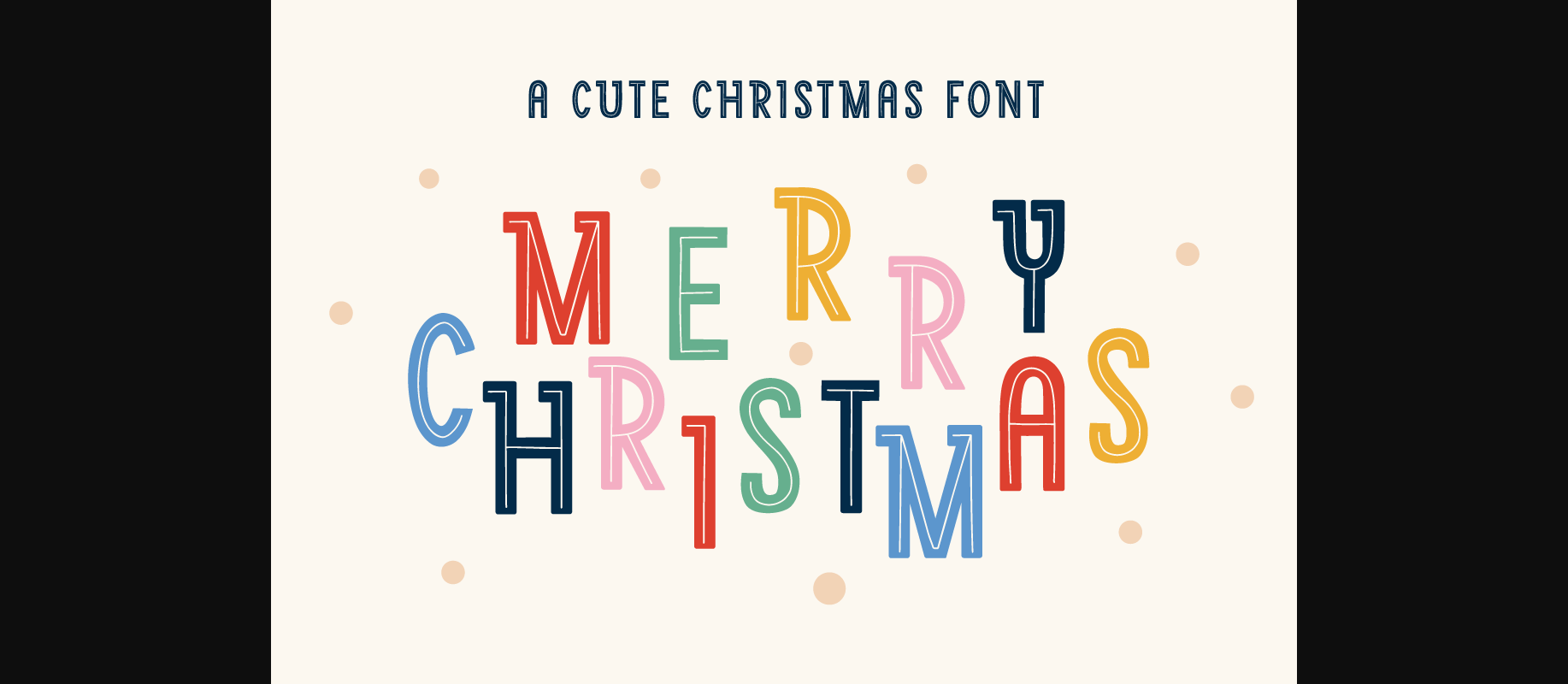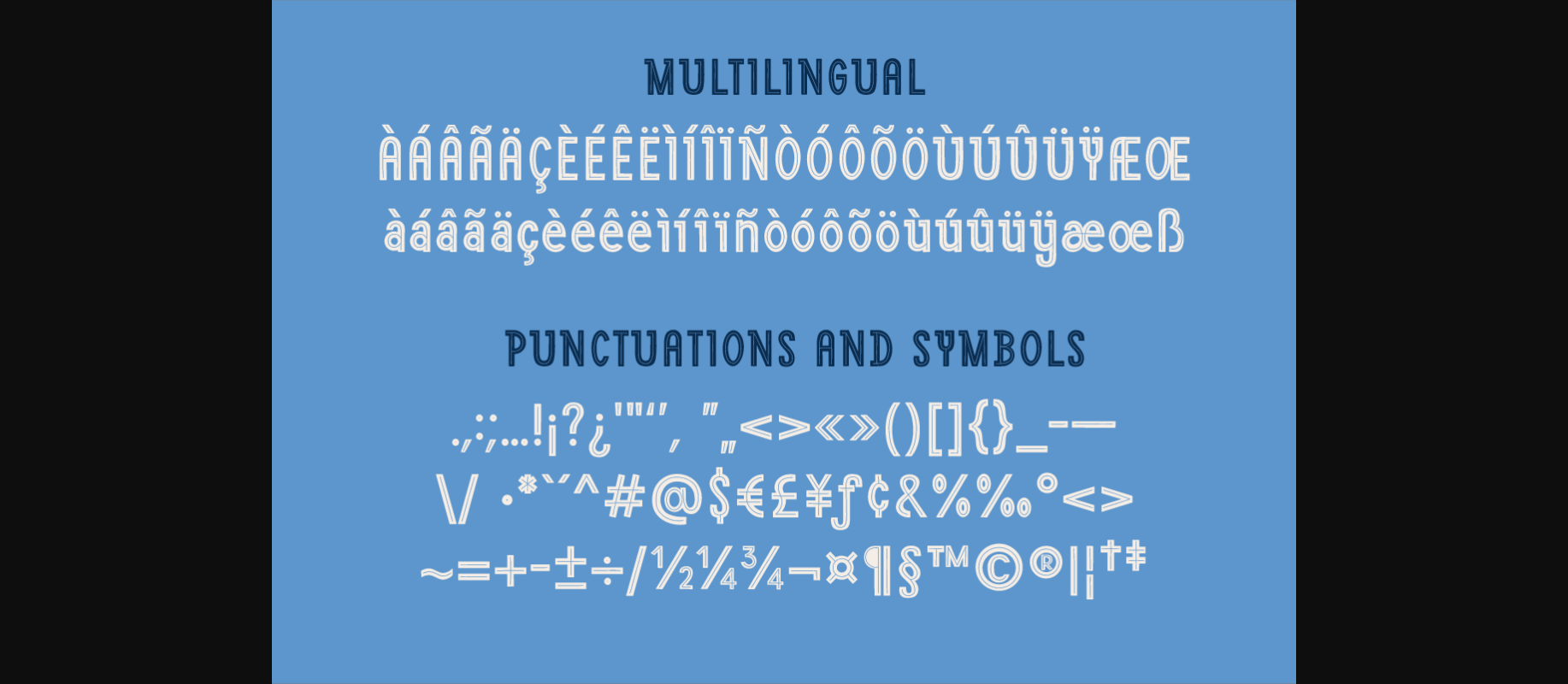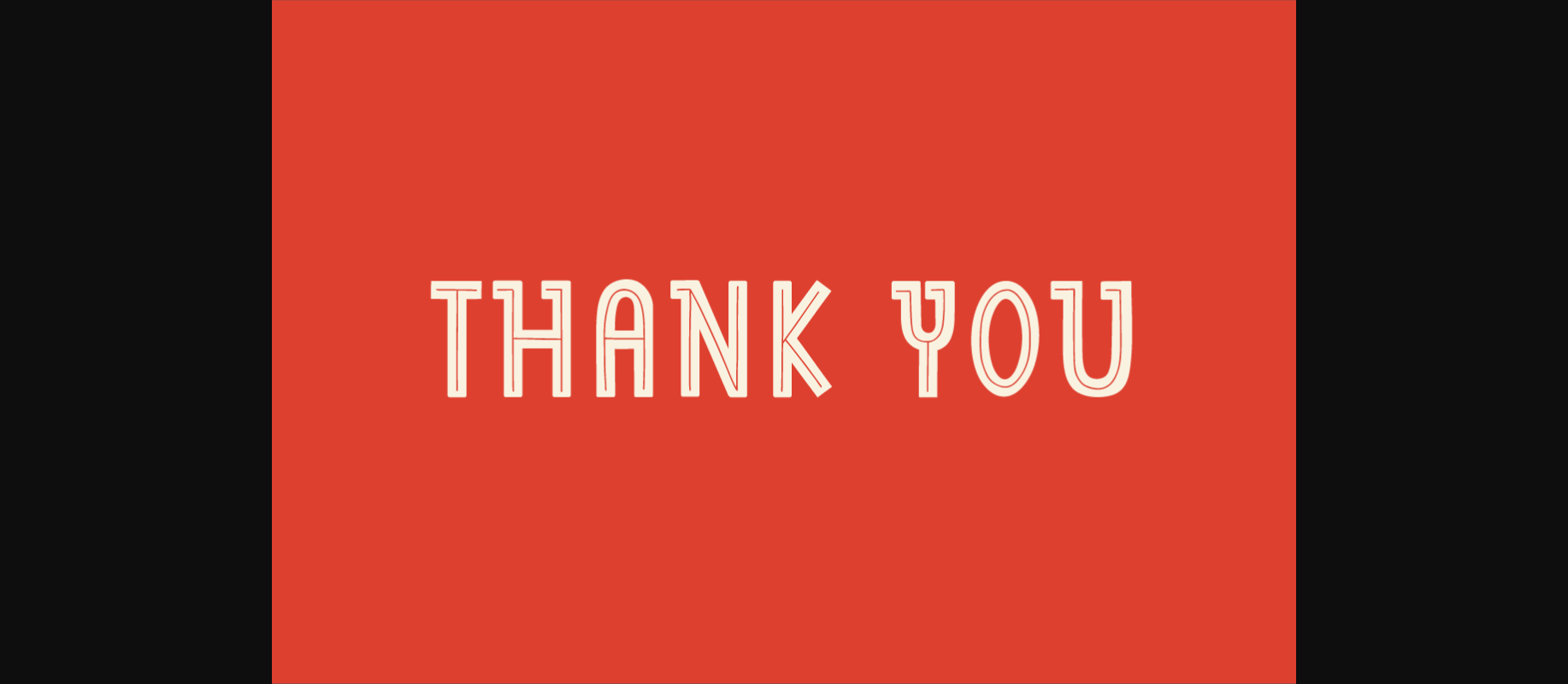
About Merry Christmas Font
Merry Christmas is a cute Christmas font. Perfect for circuit projects, shirts, retro designs,Christmas invitations, mugs, stickers, playful quotes, creating posters, logos, greeting cards, packaging, decorating the illustration and so much more!